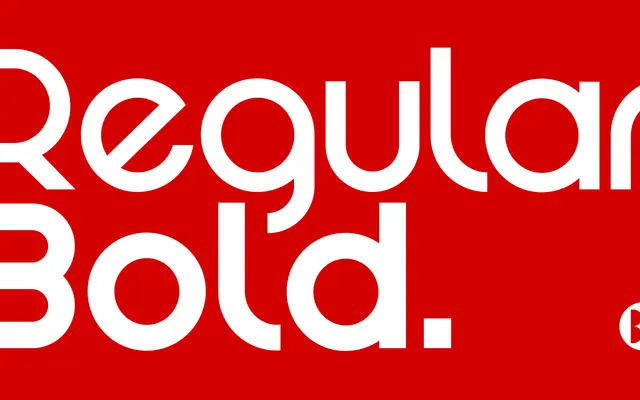
BD Discount
Type Different · 2003
A tightly geometric grotesque originally drawn for the Büro Discount logotype in 2003, updated in 2023 with improved kerning, expanded glyphs and stylistic alternates.
Born from a 2003 logotype commission, BD Discount is a geometric sans with a clean, constructed character suited to logotyping and titling work. Its 2023 revision added two stylistic sets with alternate letterforms, better kerning and a broader glyph set, whilst keeping the family to two weights: Regular and Bold. Latin script coverage spans Western European languages including French, German, Portuguese and Swedish.
Described explicitly as a geometric grotesk sans serif, with circular constructions and a logotype-first design ethos that places it firmly in the geometric grotesque tradition.